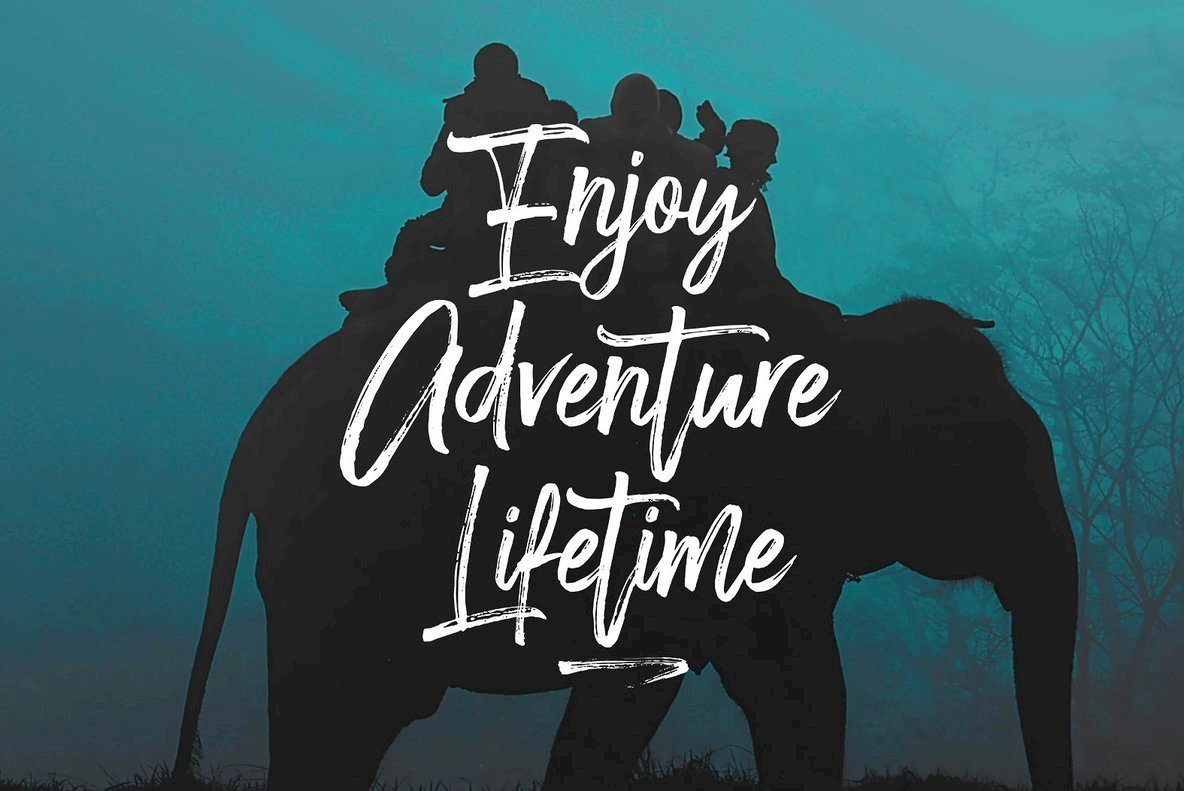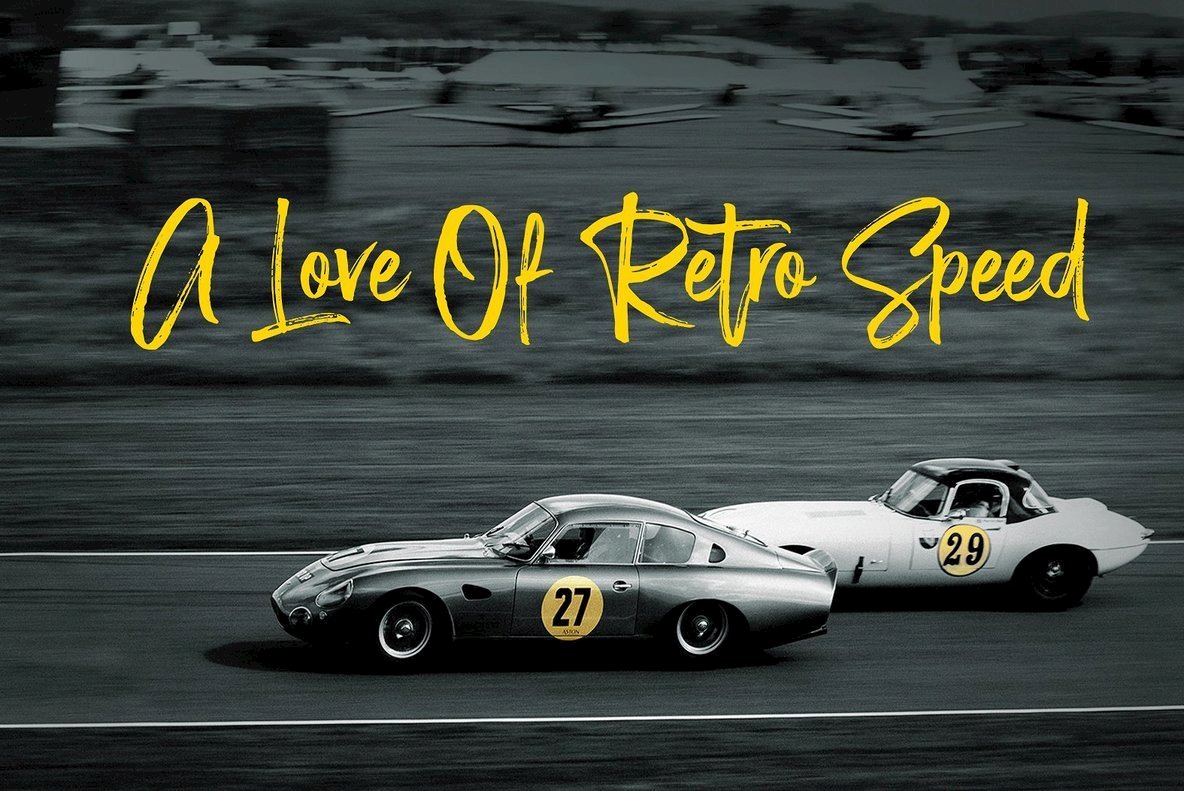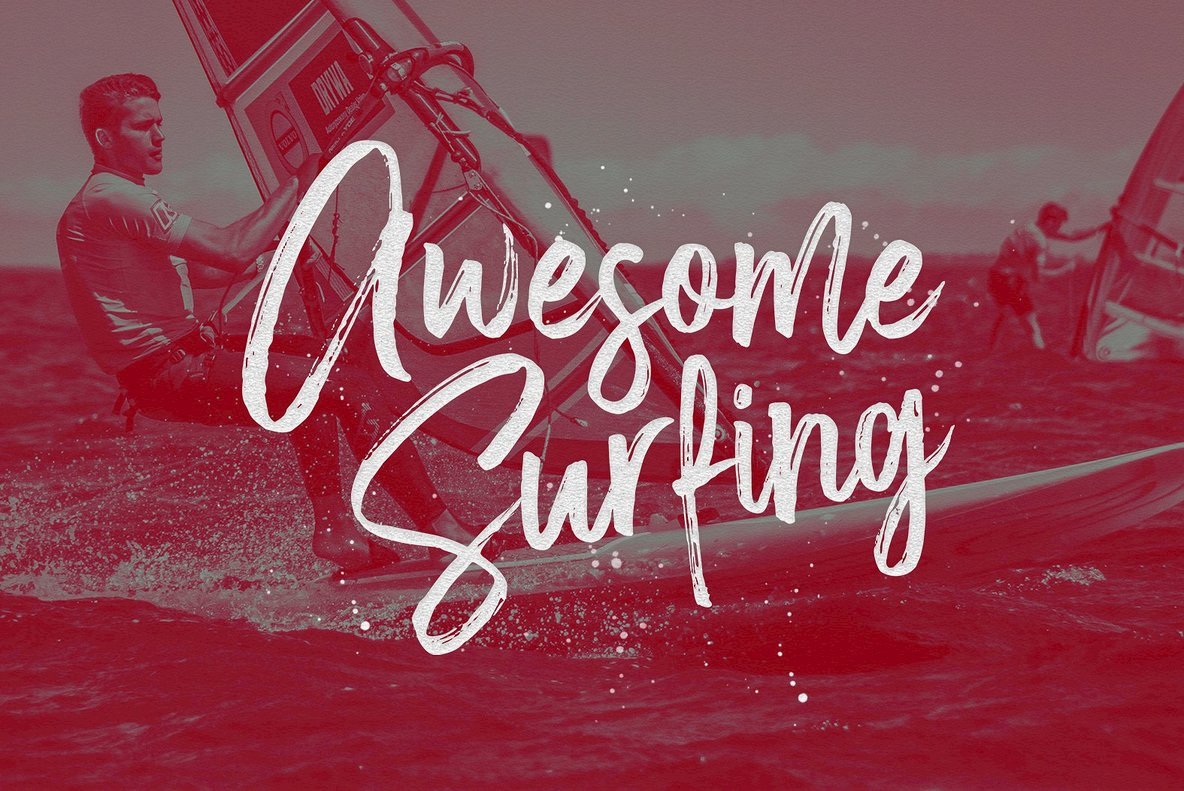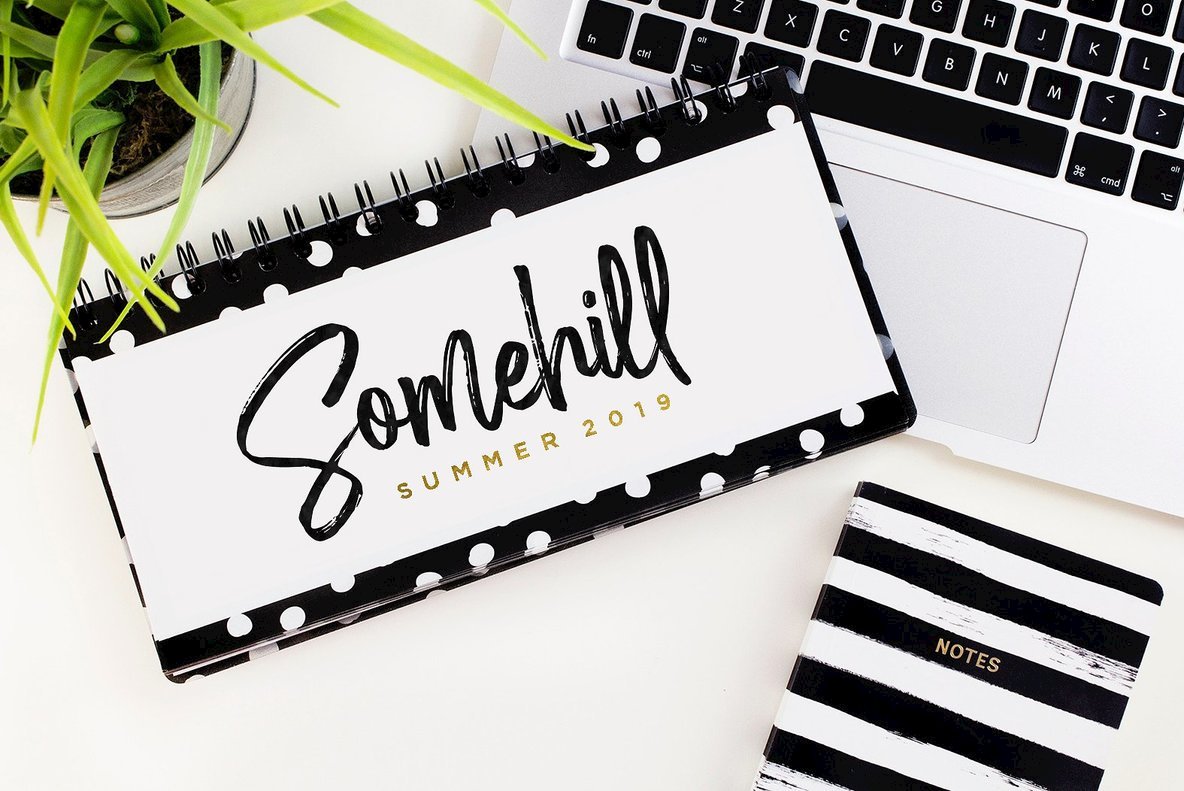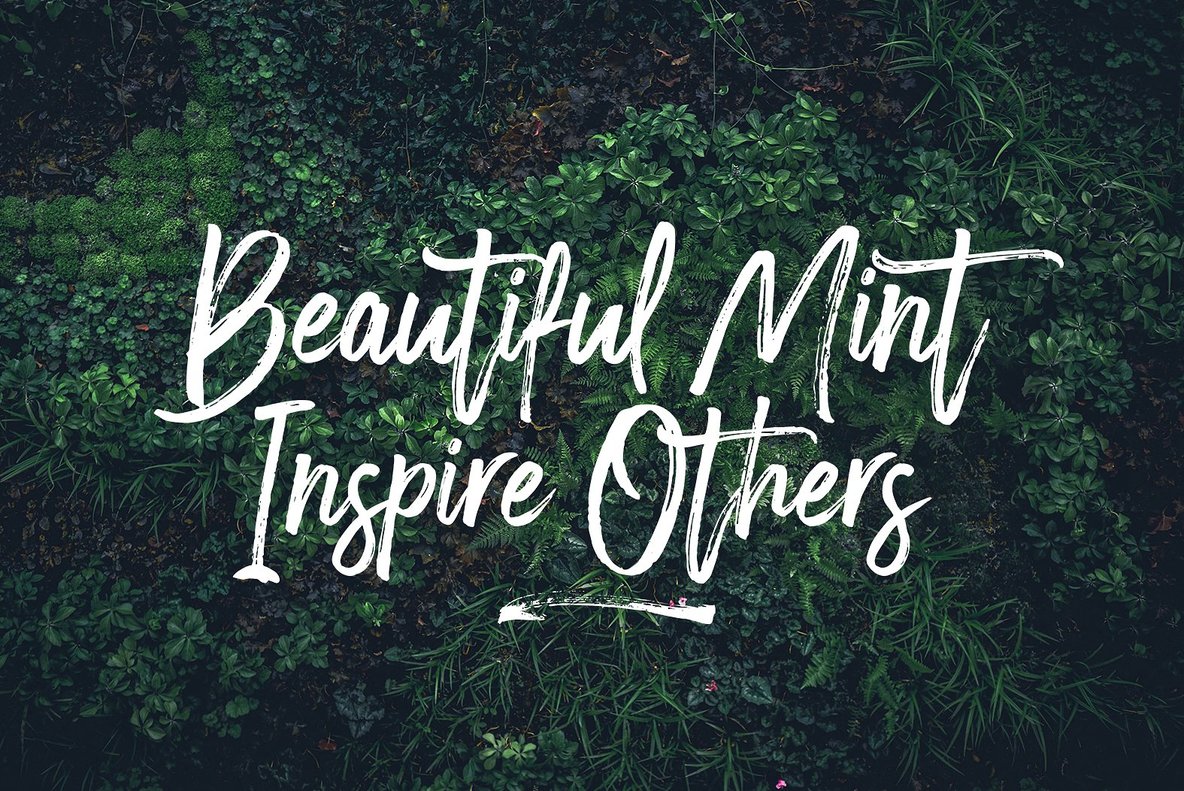
Smoothread Font
Smoothread embodies the fluid grace of handwritten brush strokes, offering a contemporary touch to any design project. Drawing on natural elements, this font is crafted to add an organic feel to titles, headers, and logos. The design's authenticity is rooted in its handmade aesthetic, making it a versatile choice for designers seeking a personal and warm appearance.Smoothread: Handwritten Brush Font by Dhan Studio